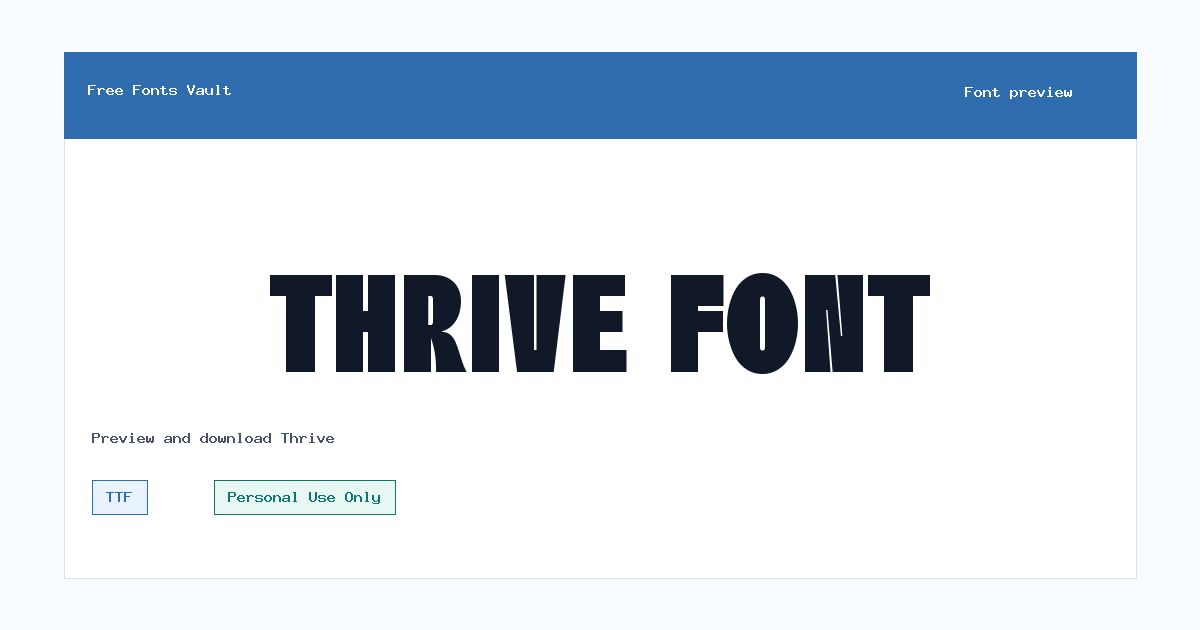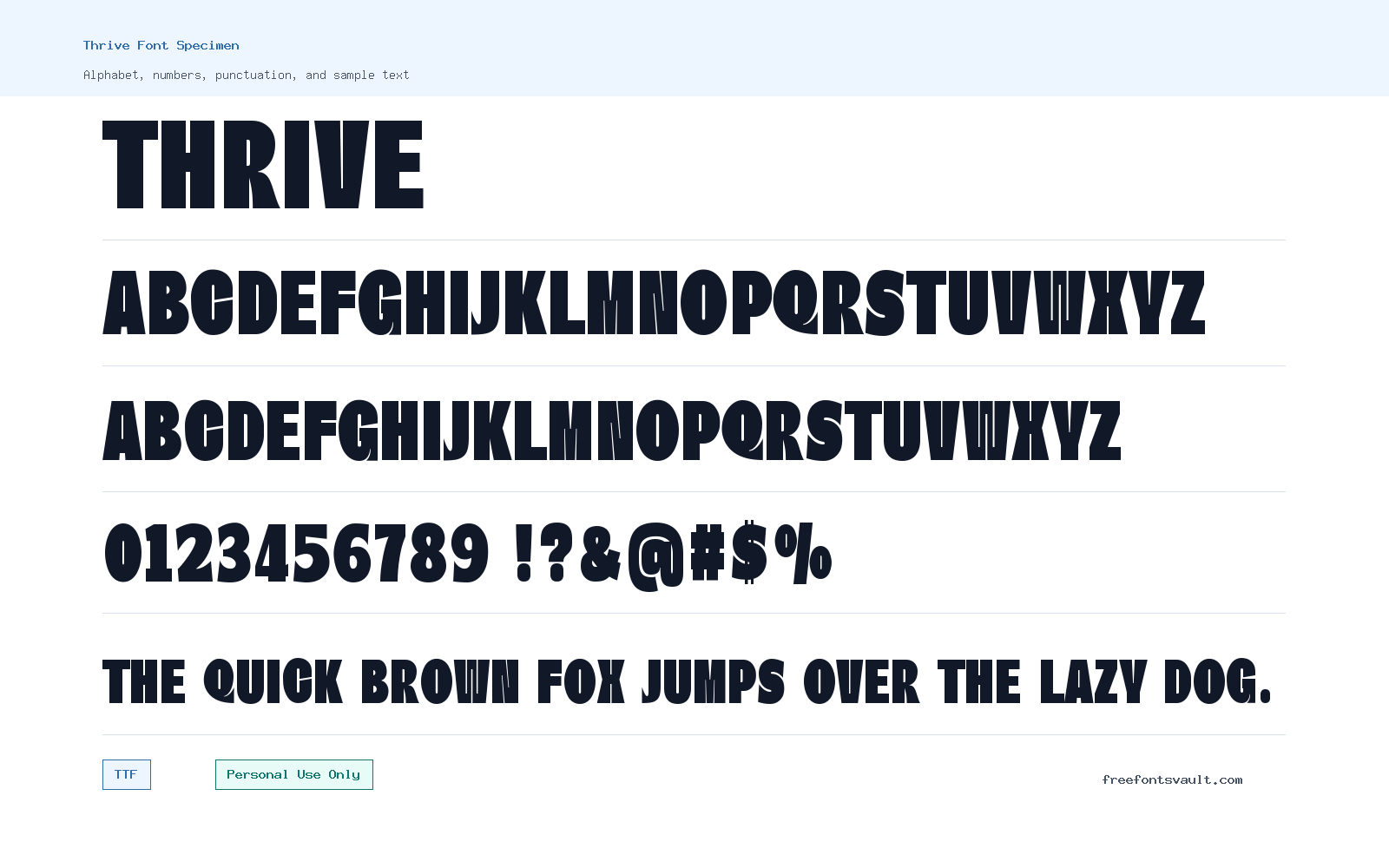
Thrive
Thrive is a bold display sans serif font from Graphicxell, built for short words that need a strong, compact look. Its license is Personal Use Only, so check permissions before using it in any paid or client project.
Thrive has a heavy, blocky sans serif style with tight letter shapes and a strong vertical feel. The strokes are thick, the spacing is compact, and the letters make the most impact at large sizes. In the preview, the lowercase alphabet appears as uppercase-style forms, so the font works more like an all-caps display face than a text family with traditional lowercase. That makes it a better choice for bold titles, poster words, thumbnails, labels, and short branding mockups where the message needs to be read quickly.
Use Thrive with care in longer settings. Its dark weight and narrow shapes can become crowded in paragraphs, small menu text, or dense layouts. It is more effective when paired with a plain, lighter sans serif for supporting copy. Try it in the font preview with your exact words before downloading, especially if your design includes numbers, tight spacing, or mixed-case text. The download is a TTF regular style, which is widely supported in common design apps and can be tested easily in mockups, personal posters, social graphics, and practice layouts.
- Bold condensed sans serif display style with heavy strokes and compact spacing
- Regular TTF font file with uppercase-style letterforms visible in both uppercase and lowercase preview text
- Best suited to large-size words, titles, and short graphic text rather than long reading copy
- Poster titles and bold headline layouts
- Social media graphics, thumbnails, and short promotional mockups
- Personal logo experiments and display lettering practice
- Labels, stickers, and short wordmark-style designs
Preview Thrive at the size you plan to use. It works best with short, high-impact text and generous surrounding space. For readable layouts, pair it with a clean body font and avoid using it for paragraphs, captions, or small navigation text.
What type of font is Thrive?
Thrive is a bold display sans serif font with thick, compact letterforms. It is better for headlines and short text than for long reading.
Why should I test my text before downloading?
Thrive is very bold and compact, and its lowercase preview appears uppercase-style. Testing your exact wording helps you check spacing, readability, and number support.